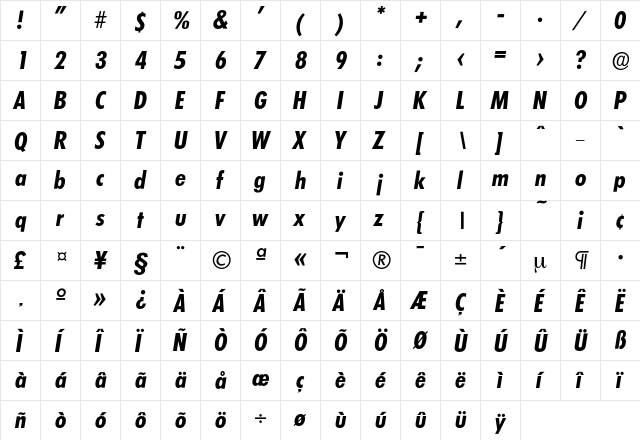
Limerick-DemiBoldCondIta Regular
Design Context for Limerick-DemiBoldCondIta Typeface
Limerick-DemiBoldCondIta is a composed and adaptable typeface that performs quietly and consistently across a wide range of design contexts. Its bold stroke weight gives it real presence on the page. Its narrow stance lets it pack a punch even in space-constrained designs.